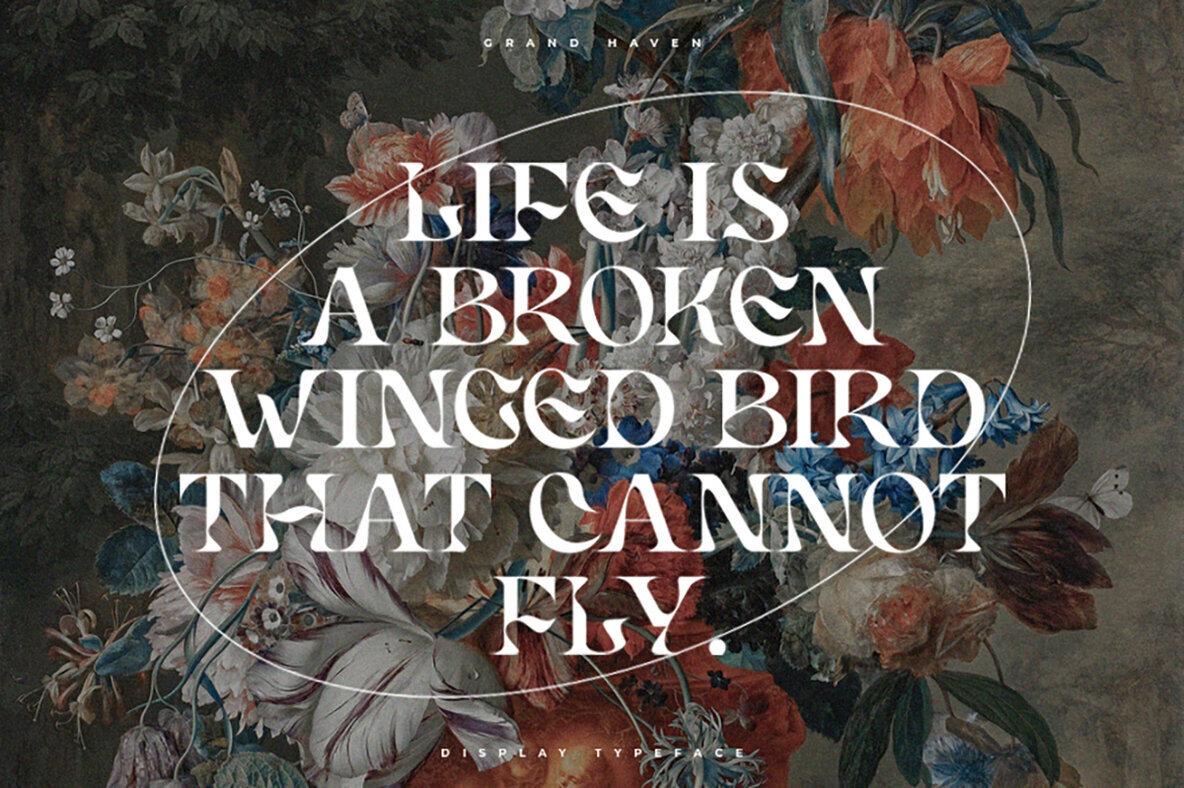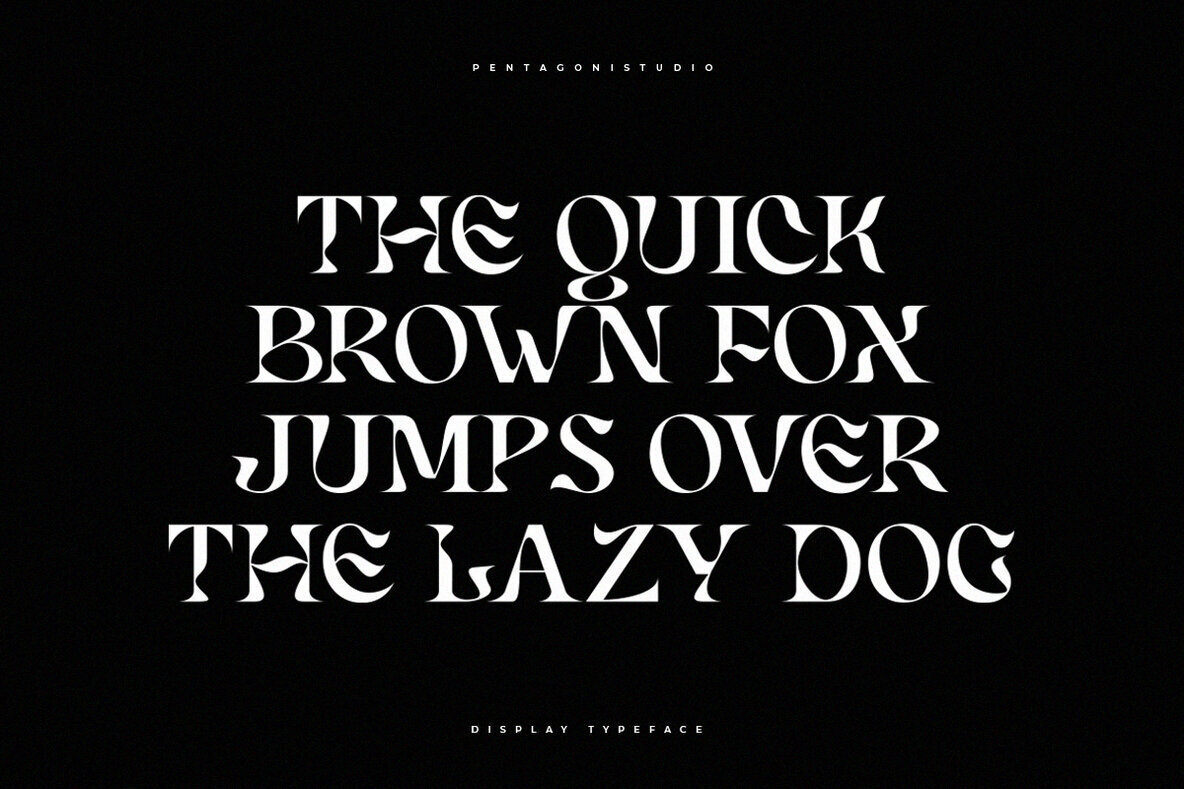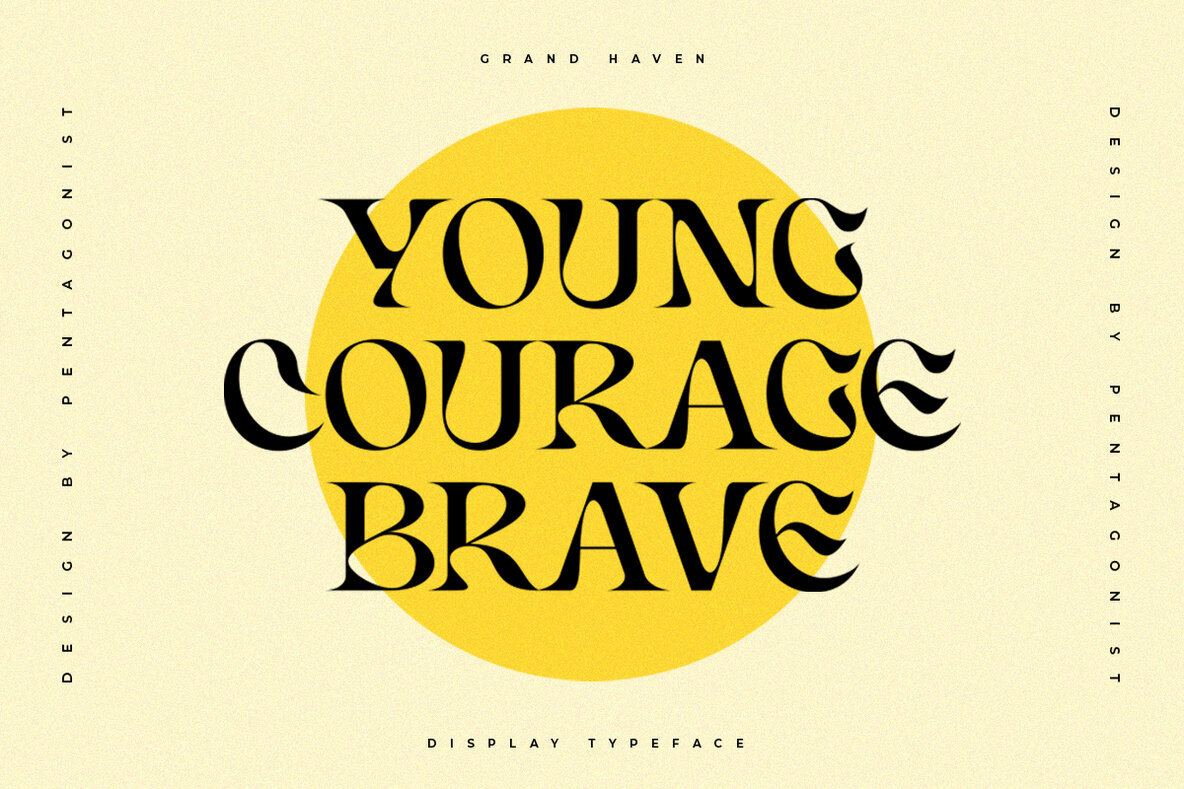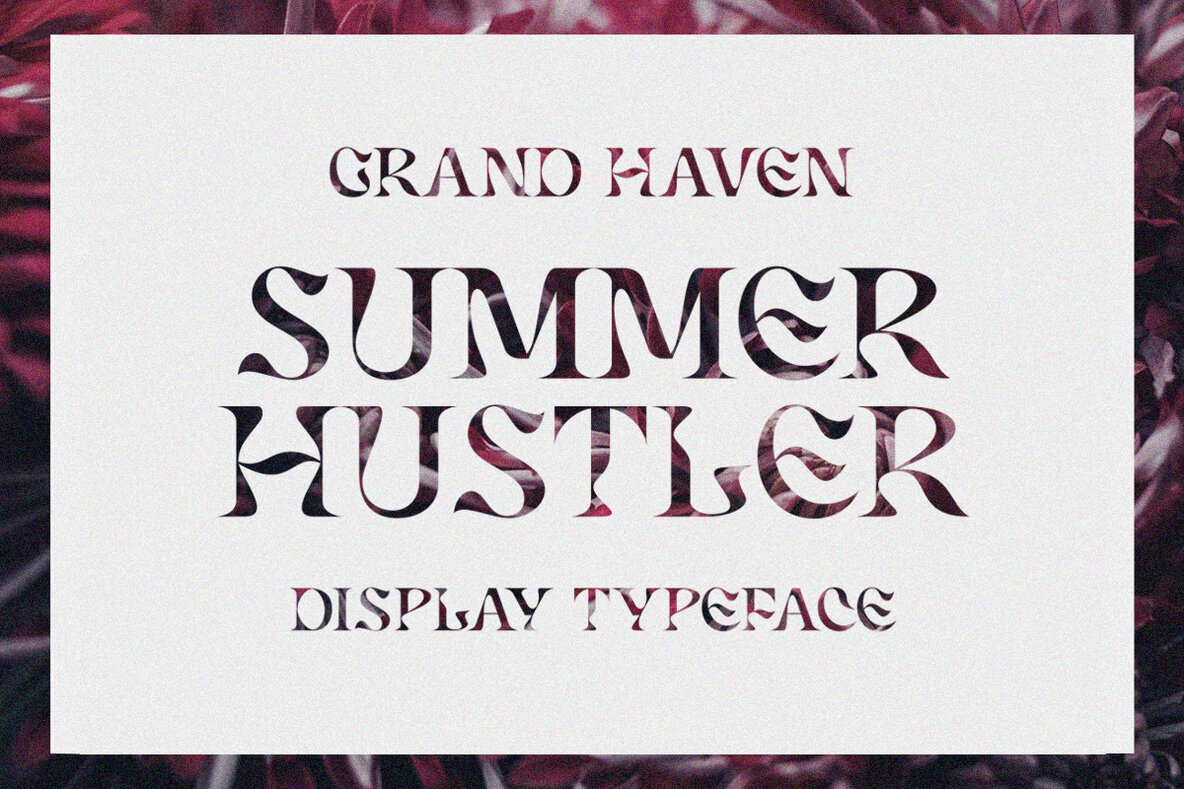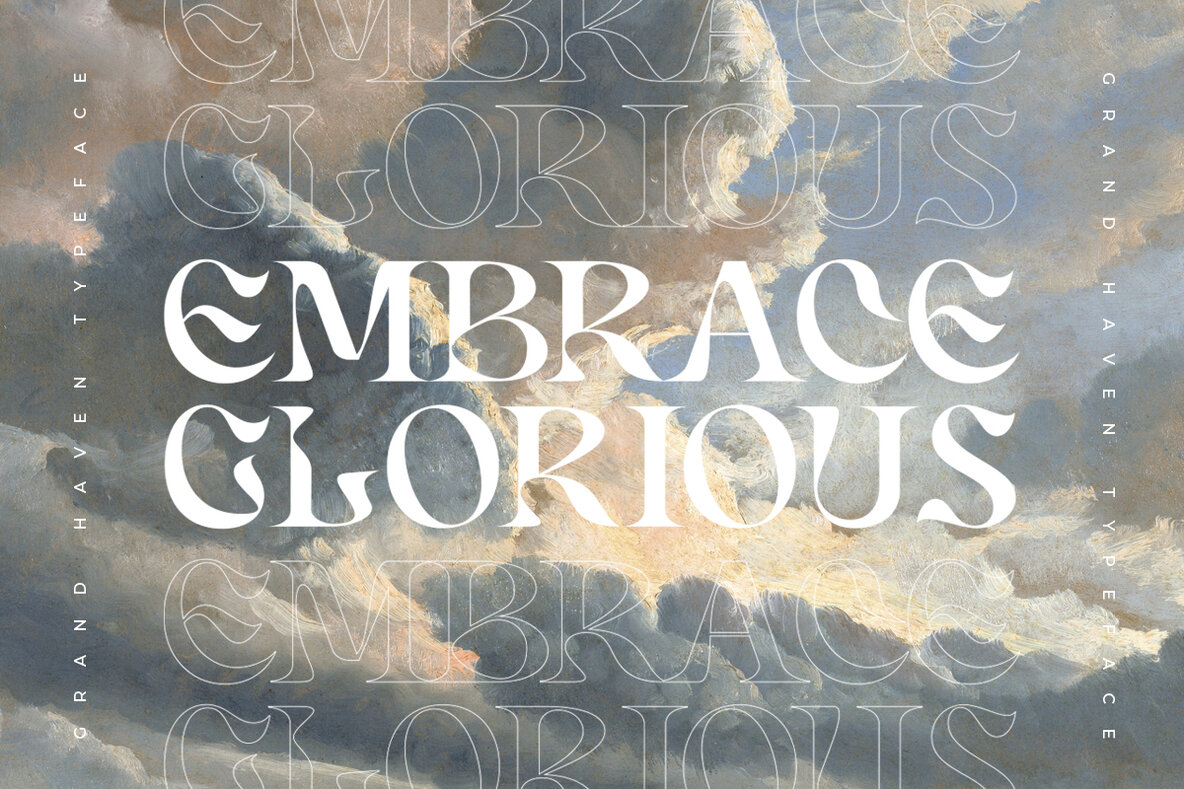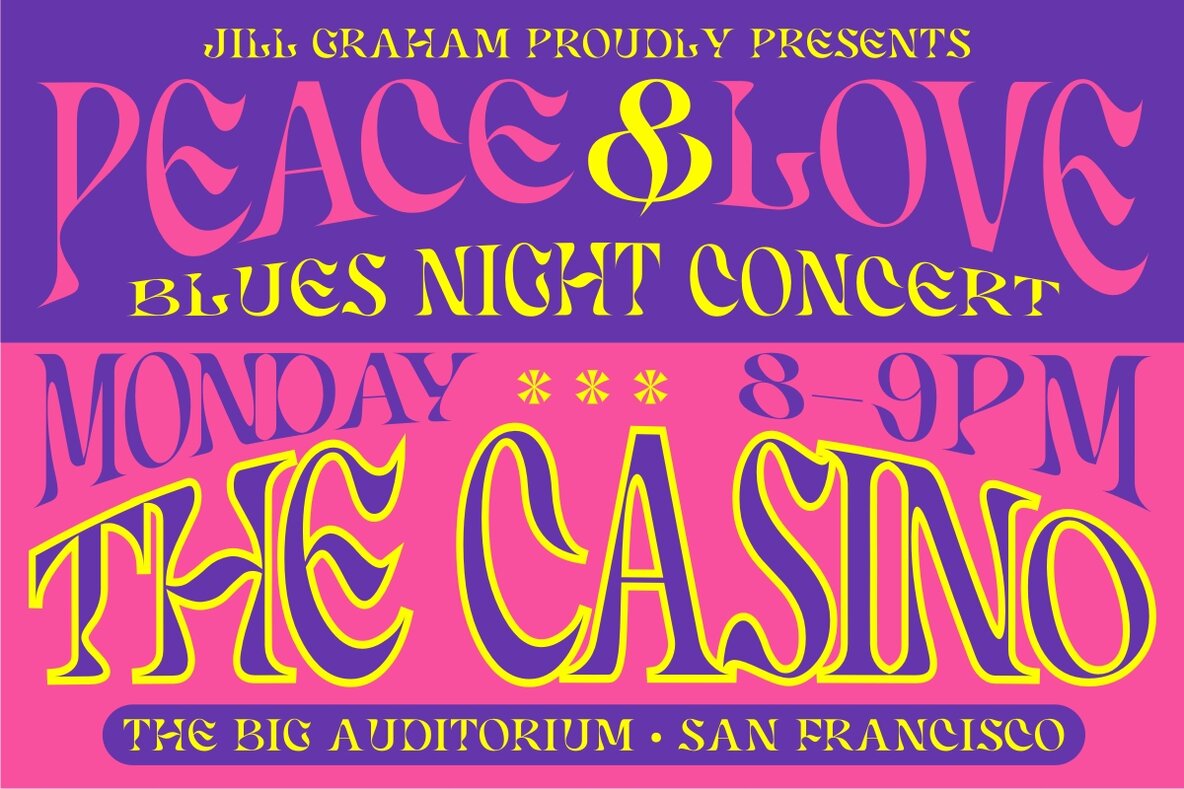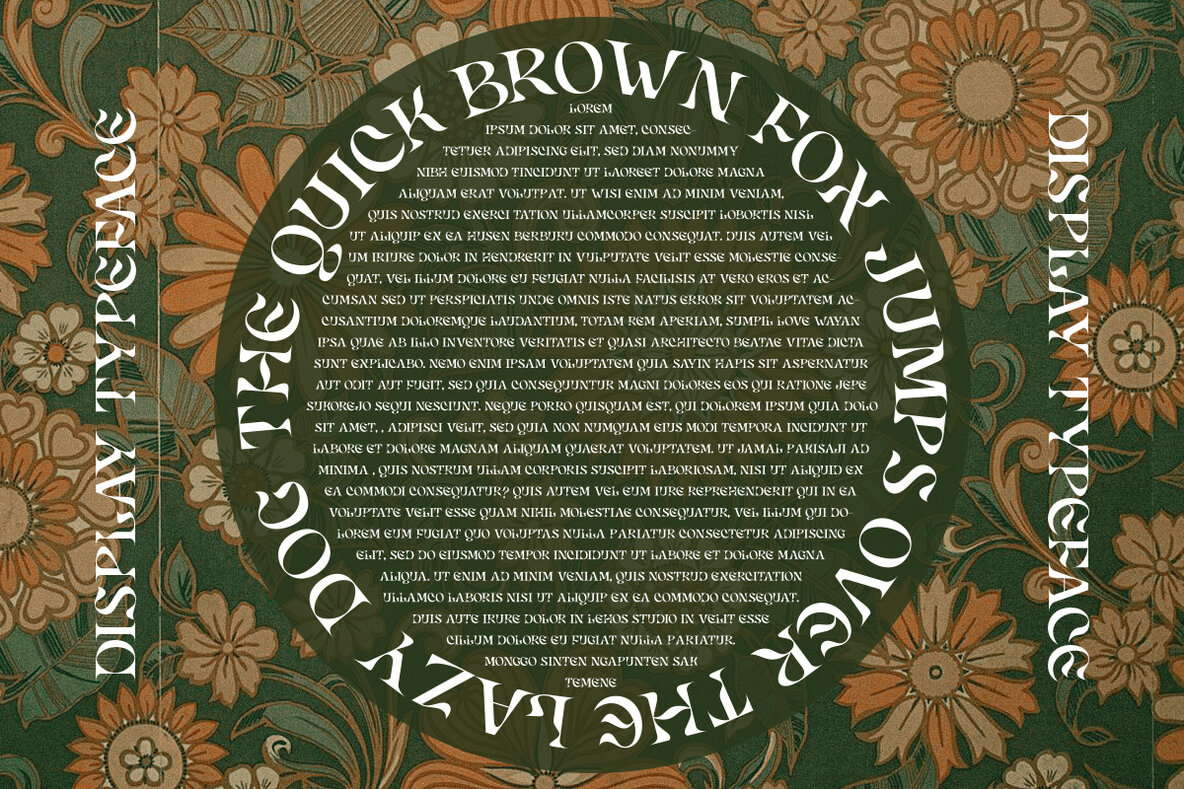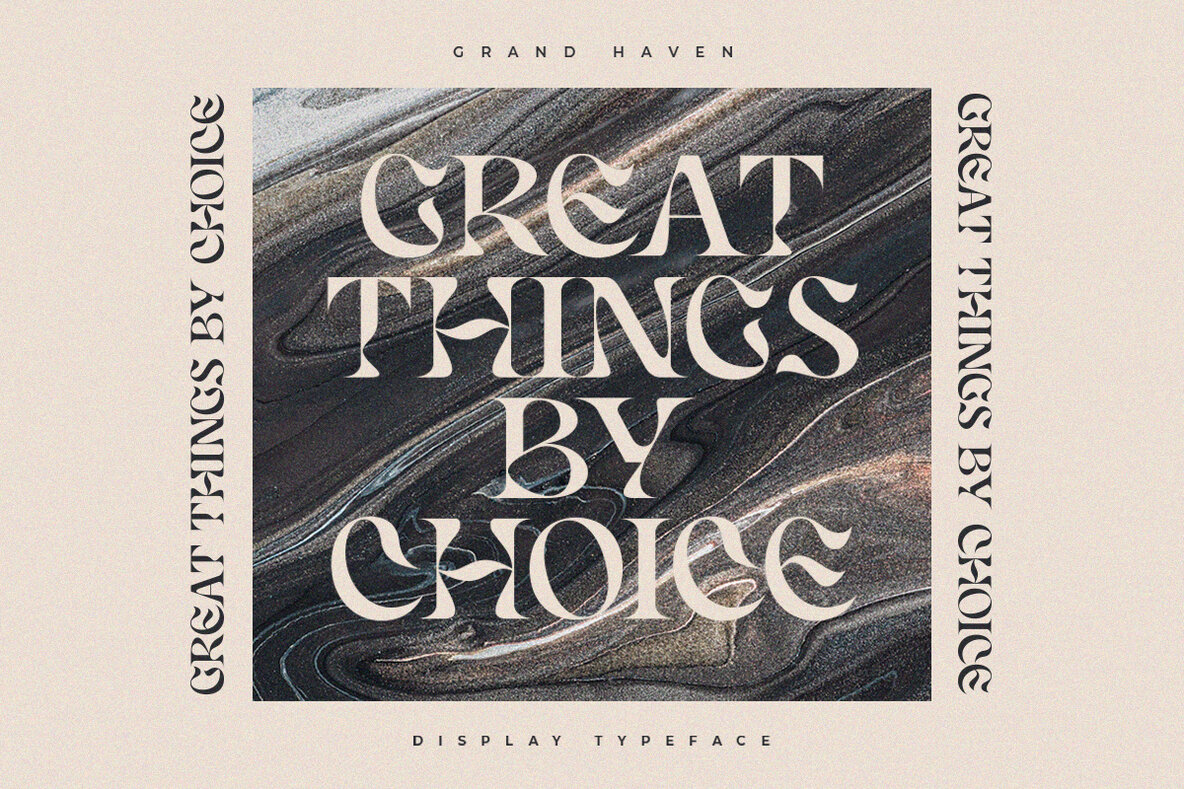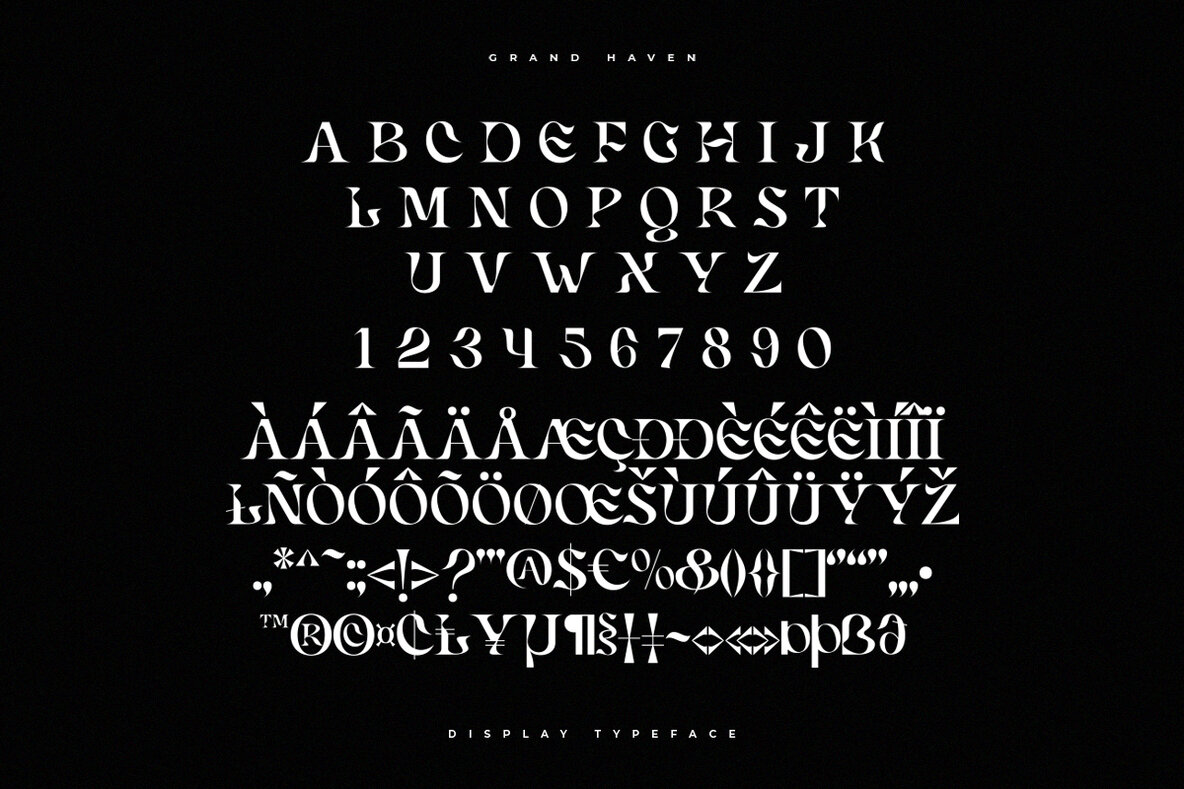
Grand Haven: Vintage Display with Nostalgic Flair
Grand Haven is a vintage display font that captures the essence of nostalgia through its carefully crafted characters. Rooted in timeless design principles, this typeface brings a sense of history and charm to any project. Ideal for design applications that call for personality and retro appeal.
• Vintage Appeal – Perfect for projects requiring a classic touch.
• Nostalgic Characters – Evokes a sense of familiarity and warmth.